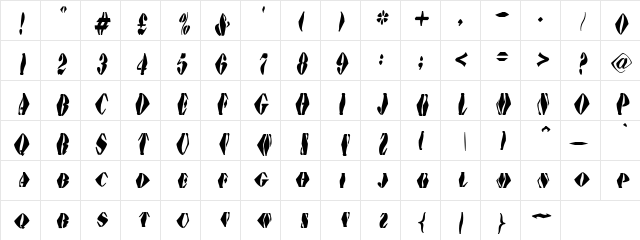
AustralianFlyingCorpsStencilSE Regular
Design Context for AustralianFlyingCorpsStencilSE Typeface
AustralianFlyingCorpsStencilSE borrows the utilitarian aesthetic of stencil lettering, with its characteristic cutaways and no-frills construction lending an industrial edge.
A strong choice for packaging that needs edge, warehouse aesthetics, and rough-and-ready visual identities.
Pro Tip: Use AustralianFlyingCorpsStencilSE at large sizes on packaging, posters, or apparel where the stencil cutaways read clearly. Avoid small sizes where those gaps become visual noise.